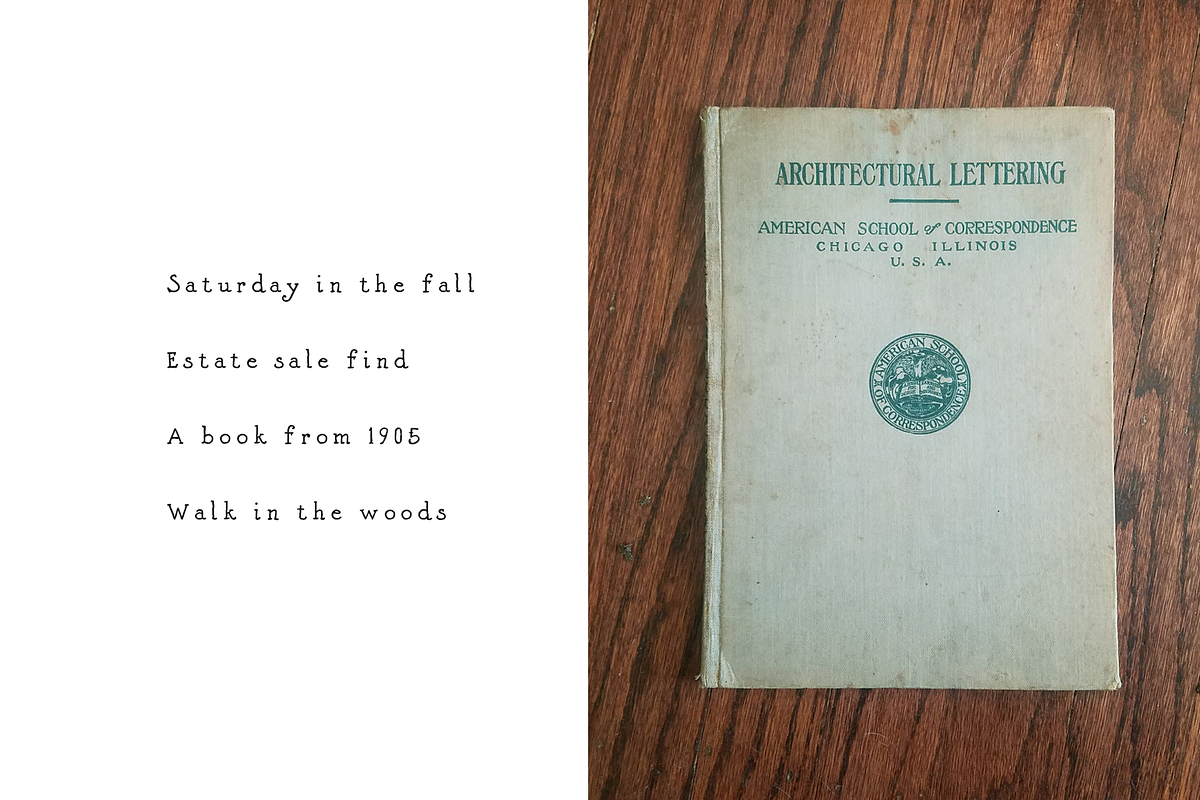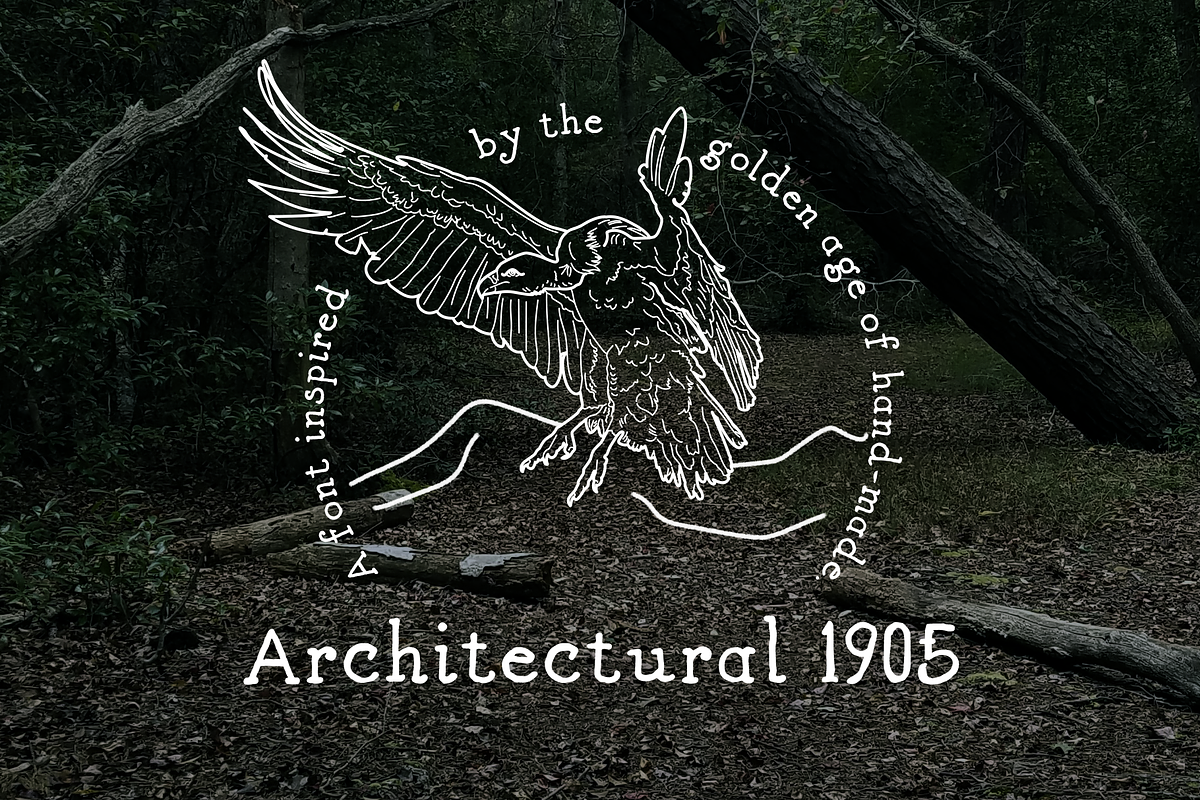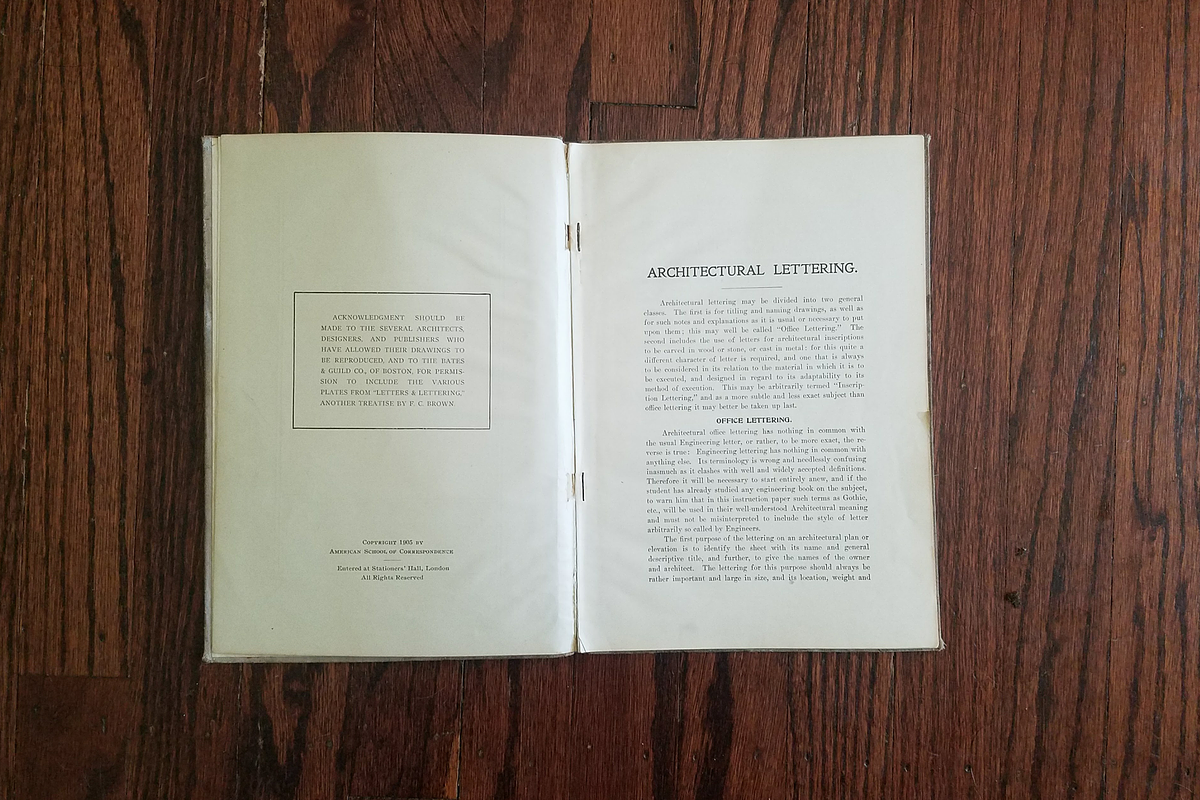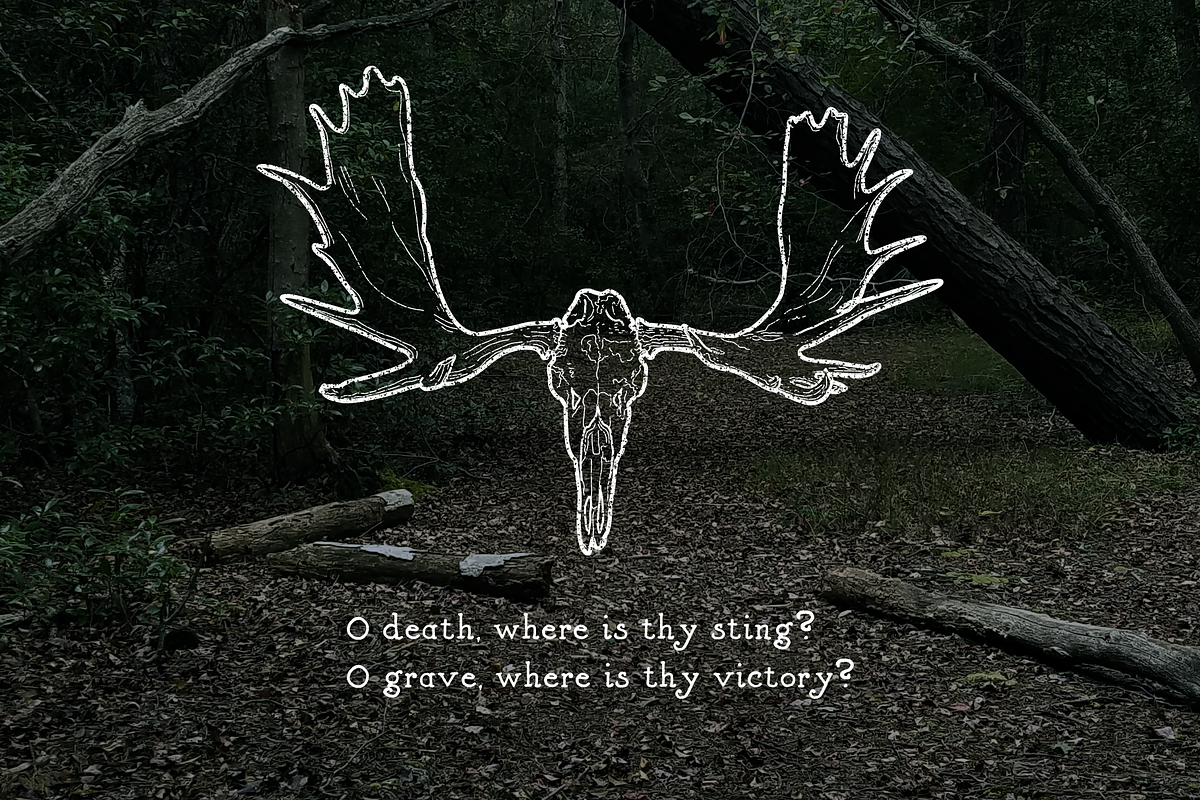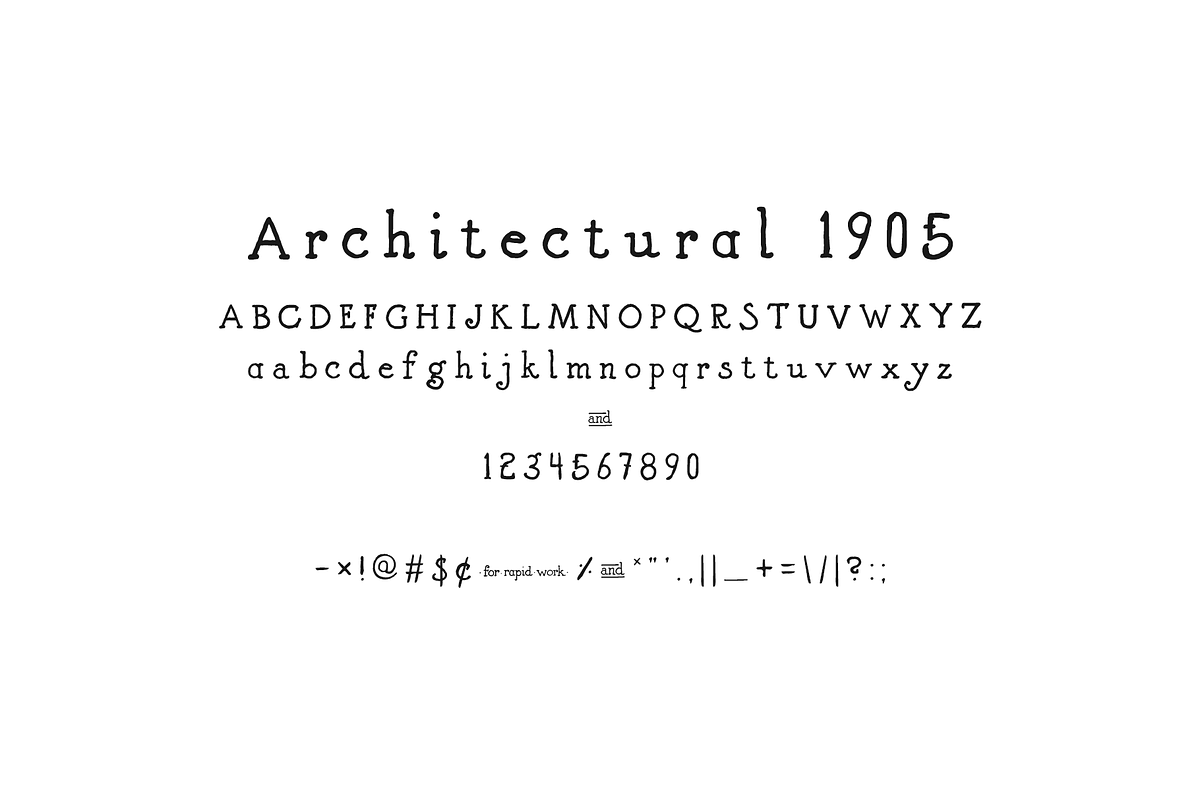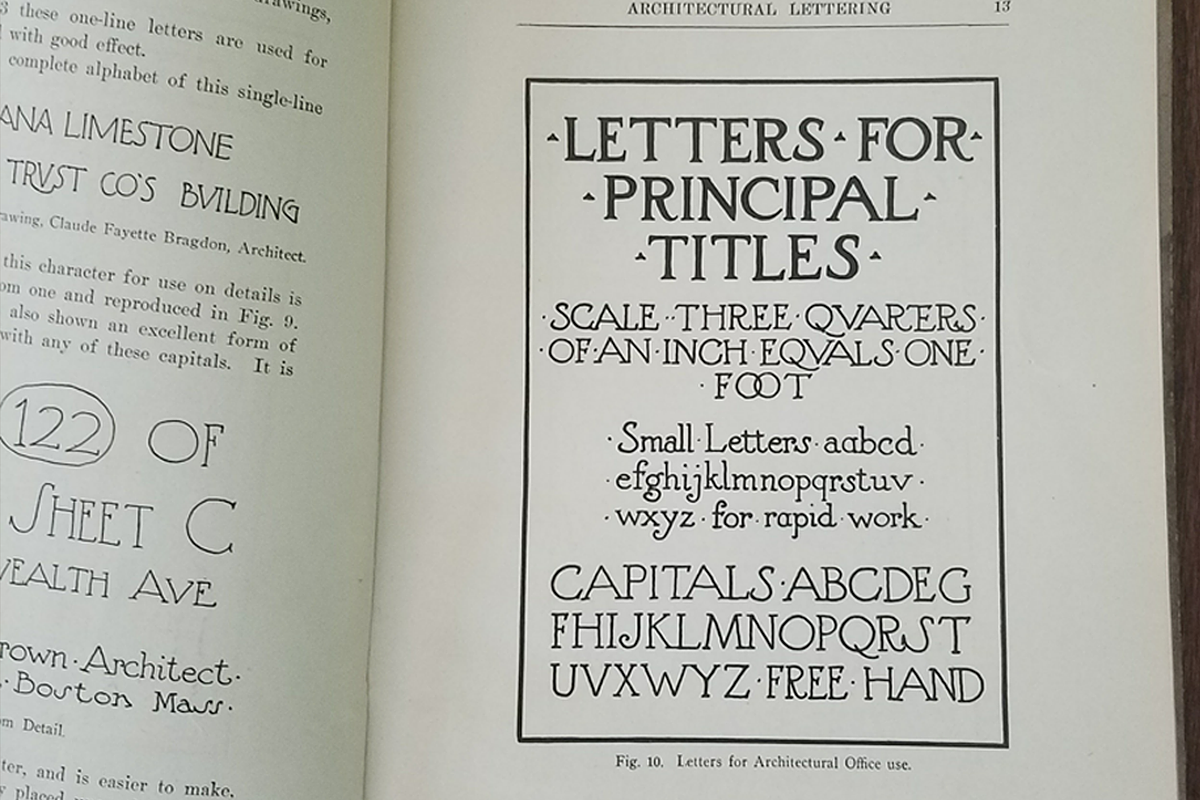
Architectural 1905 Hand Drawn Font
Looking for an underrated font for your heritage brand? This one's your winner.
This font was inspired by an estate sale find: a dusty, old correspondence course book on architectural lettering from 1905, Chicago. Imagine the eager wait for the mailman to bring the book, taking a walk to the general store to purchase pens, fresh paper and ink, looking forward to learning a trade that will bring a livable wage.
This font has a LOT of personality. It's slight imperfections make it perfect for bringing that old, heritage vibe that's so popular on social media right now. Combine it with a san serif typeface to bring a touch of rustic flair.